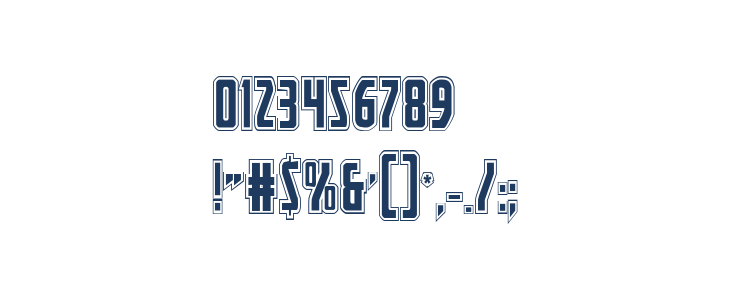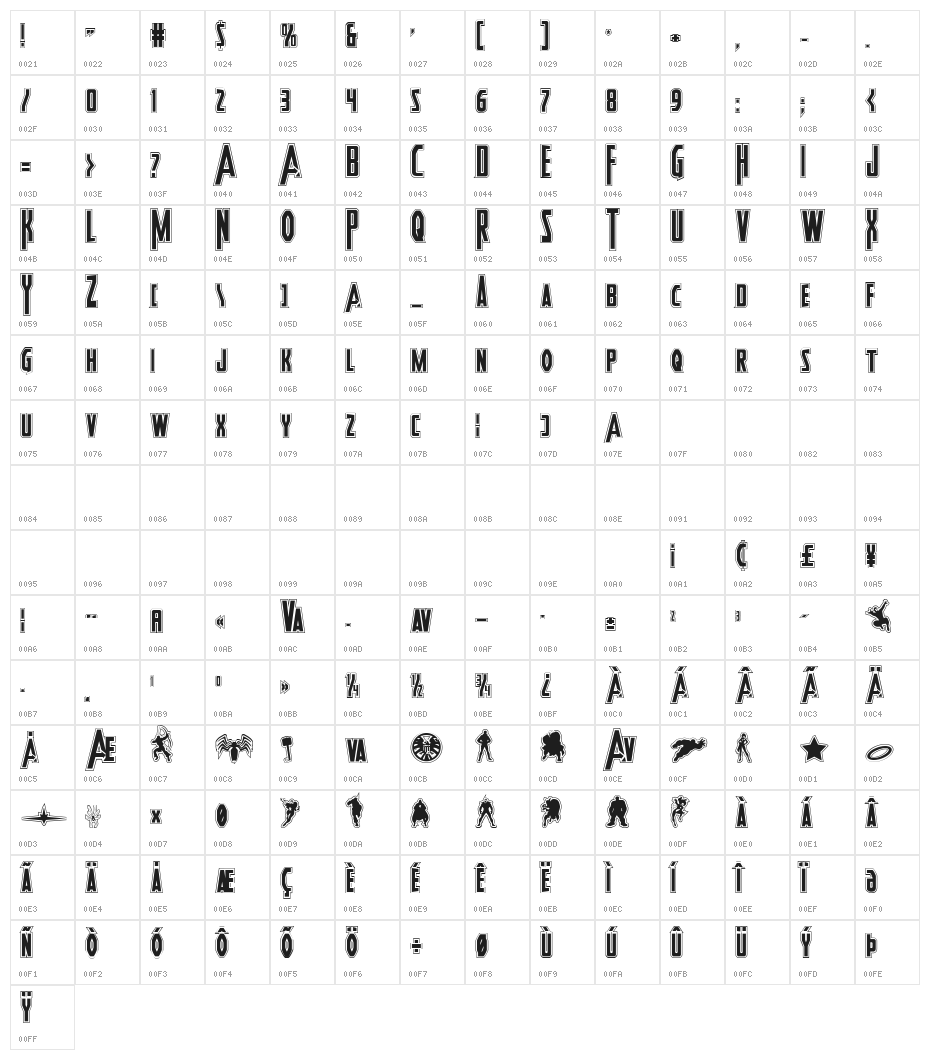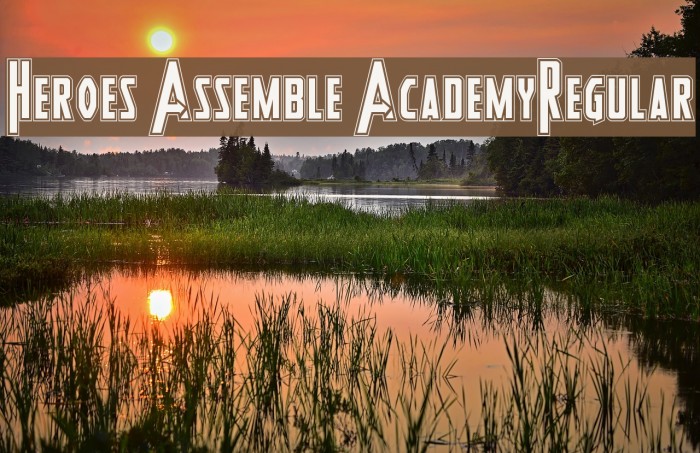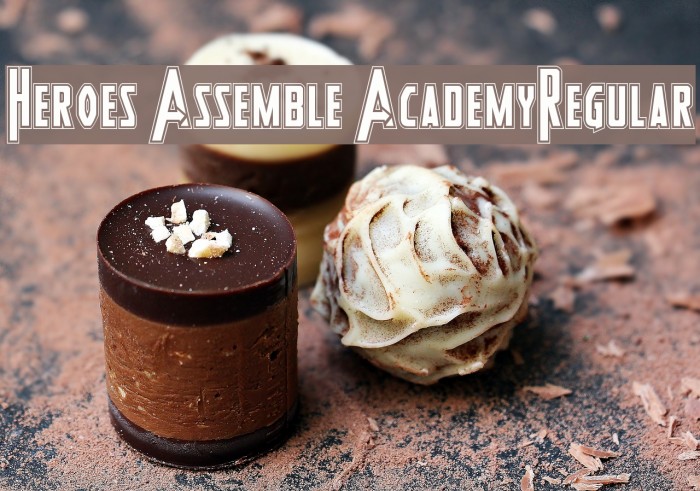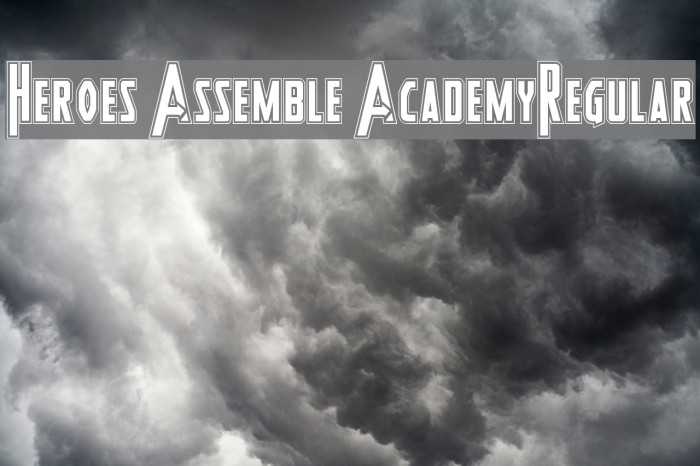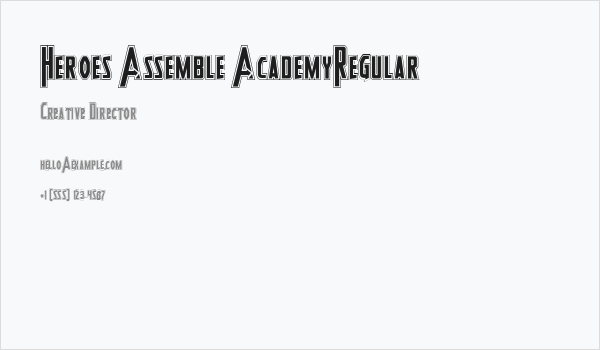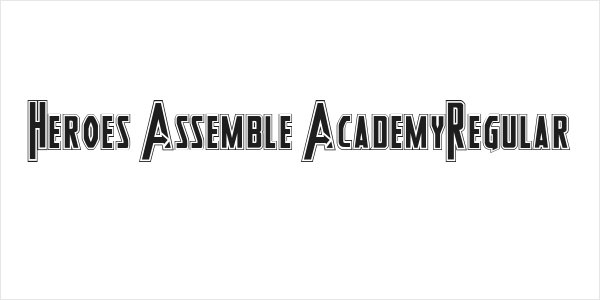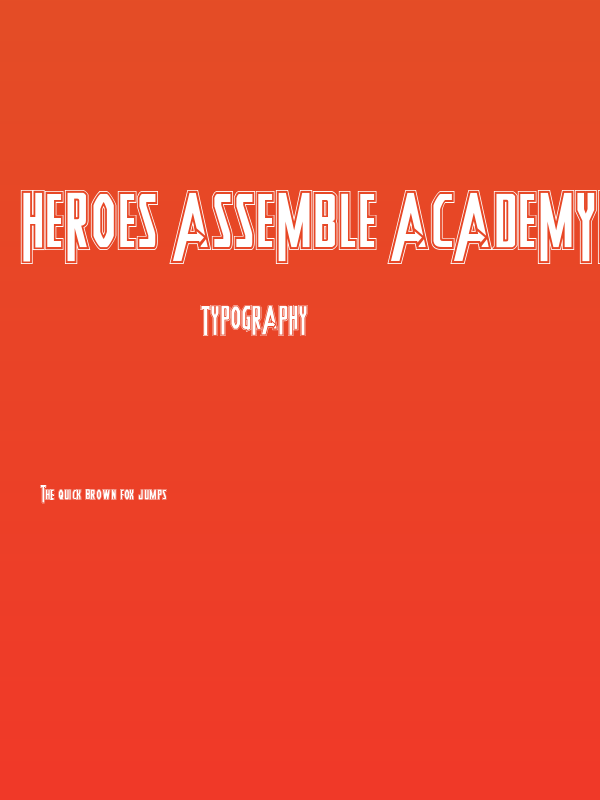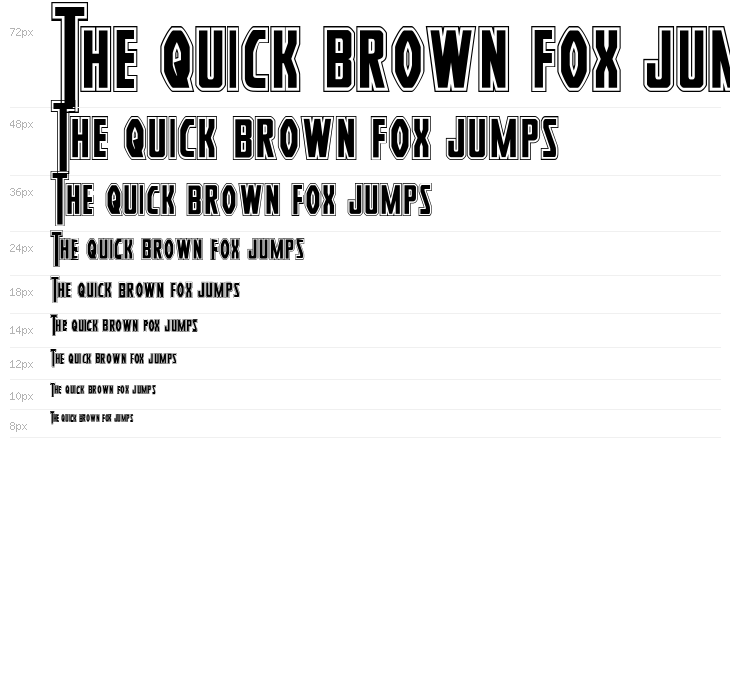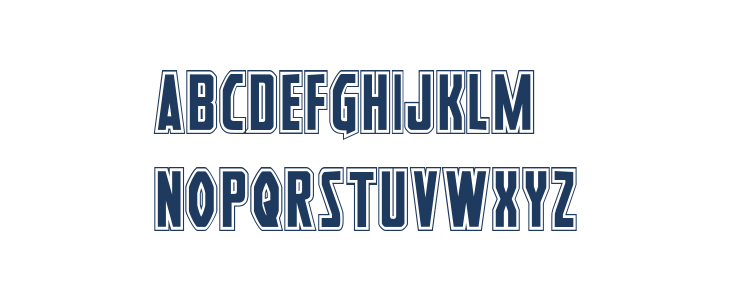
Heroes Assemble AcademyRegular Font
Heroes Assemble AcademyRegular Description
This font features a bold and impactful design with a strong presence. The letters are characterized by a three-dimensional effect, giving them a dynamic and powerful look. The uppercase letters are particularly striking, with sharp angles and a sense of movement. The numbers and special characters maintain this bold style, ensuring consistency across all elements. This font is perfect for projects that require a commanding and heroic aesthetic.
| Proposed Projects | Ideal for superhero-themed designs, comic book covers, movie posters, and branding that requires a strong and impactful presence. |